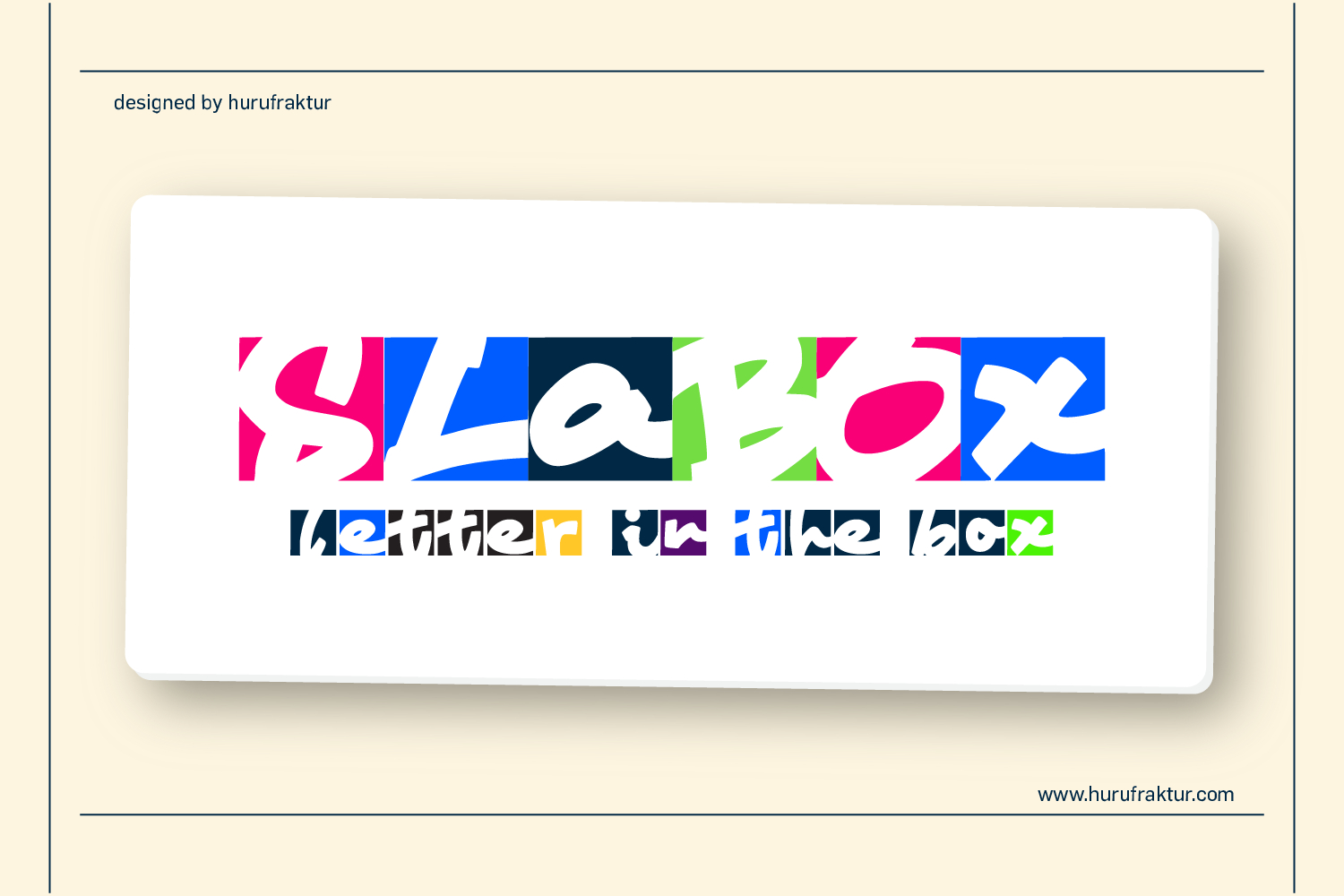
SLABOX - A Modular, Maximalist Typeface by Hurufraktur
SLABOX is a bold and playful experimental typeface that reimagines each letter as a unique, self-contained design module—each one boxed, stylized, and bursting with contrast. Designed by Hurufraktur, SLABOX is a font that lives at the intersection of lettering art, visual rhythm, and box-grid systems.
SLABOX was inspired by the concept of breaking the monotony of uniformity. Drawing influence from sticker culture, street typography, graphic modularity, and even ransom note compositions, each character in SLABOX is crafted with its own personality and visual attitude. The idea was to challenge legibility without sacrificing meaning, resulting in a type system that feels like a gallery of individual artworks.
The name itself—SLABOX—is a mashup of “Slab” (hinting at strong structure and form) and “Box” (a nod to the modular format used in each glyph).
SLABOX is made for designers, illustrators, and visual experimenters who are looking for something that breaks the mold—ideal for use in:
• Album covers
• Editorial layouts
• Zines and indie publications
• Poster design
• Apparel graphics
• Website hero sections
• Youth culture branding
• Experimental typography projects
If you're a designer seeking to inject vibrancy, contrast, and typographic rebellion, this is your font.
• Full A–Z uppercase & lowercase (each letter styled as a unique tile)
• Numerals 0–9
• Select punctuation & special characters
• Alternates and stylistic variants (depending on software compatibility)
• Color and contrast-friendly base structure
Every glyph sits in a consistent square grid, making it perfect for creating modular compositions, tile layouts, and repeatable systems. Whether you want each letter to stand out on its own or work as part of a grid-based structure, SLABOX gives you that flexibility.
SLABOX was designed by Hurufraktur, a creative force blending traditional script values and contemporary form experimentation. Known for crafting expressive, culturally grounded fonts with rebellious character, Hurufraktur builds type not just for reading—but for feeling.
• Ideal for display purposes (not suitable for body text)